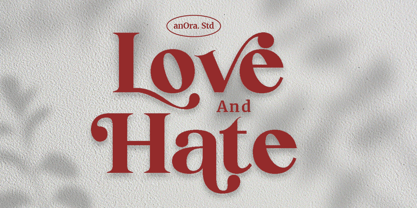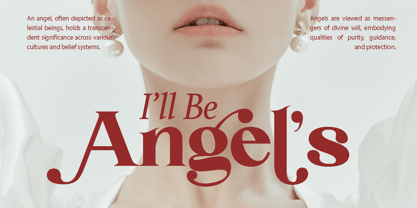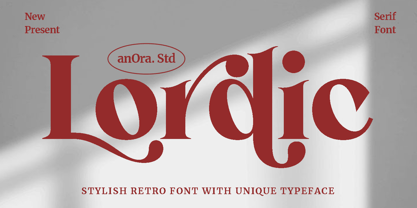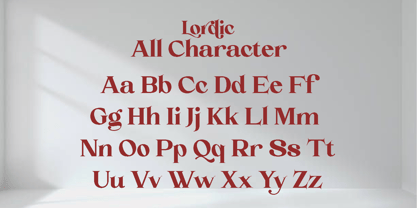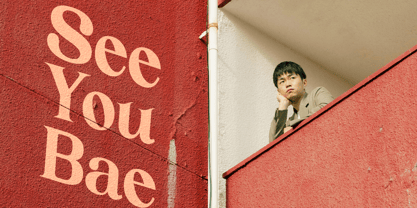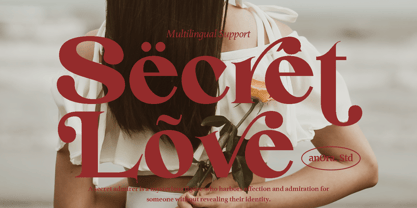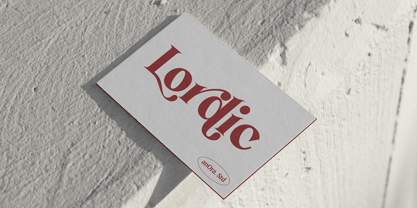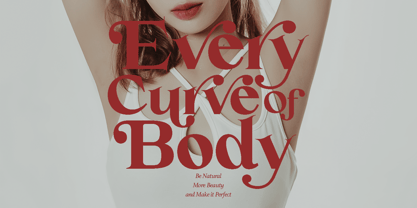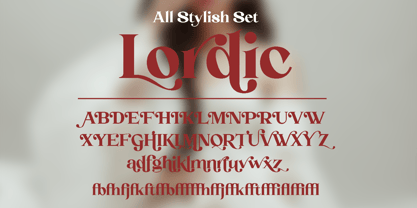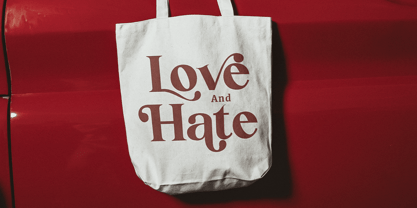
Lordic AS
by Anora Studio
The Lordic AS Font Family was designed by Sigit Mulyo Utomo and published by Anora Studio. Lordic AS contains 1 styles. More about this family
Lordic is a Retro Display Serif Font with Huge Stylistic Alternates.
Designers: Sigit Mulyo Utomo
Foundry: Anora Studio